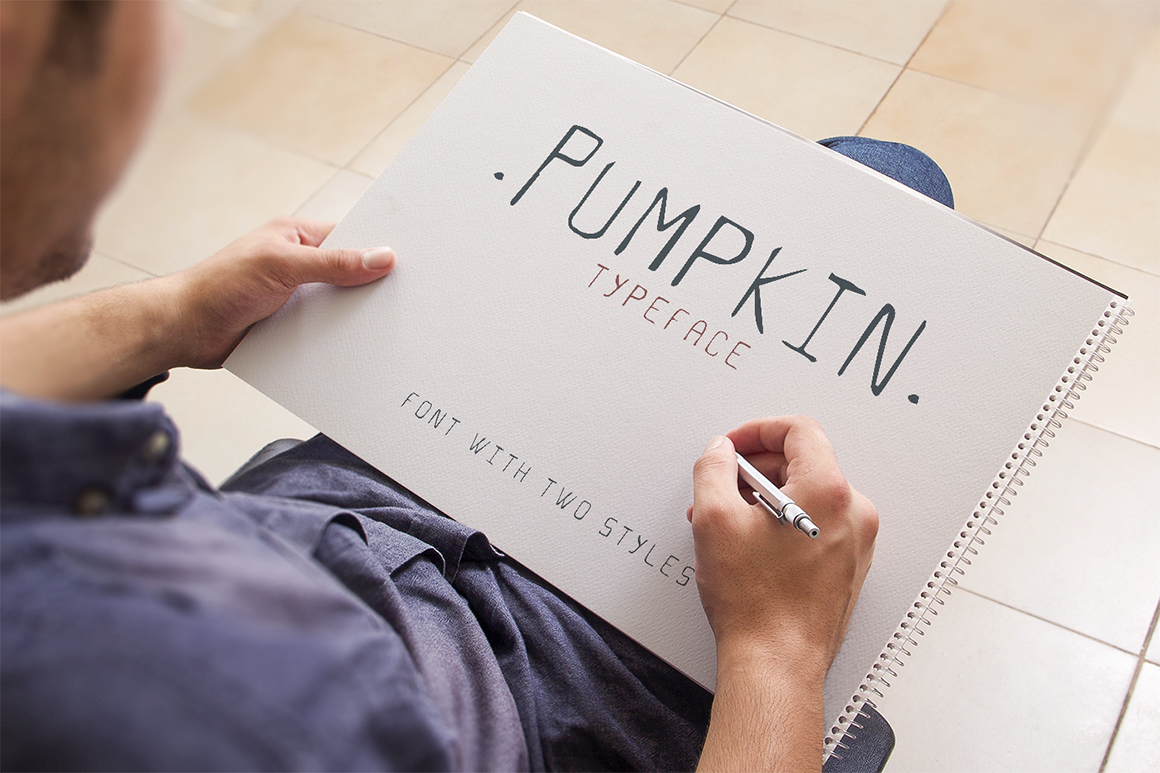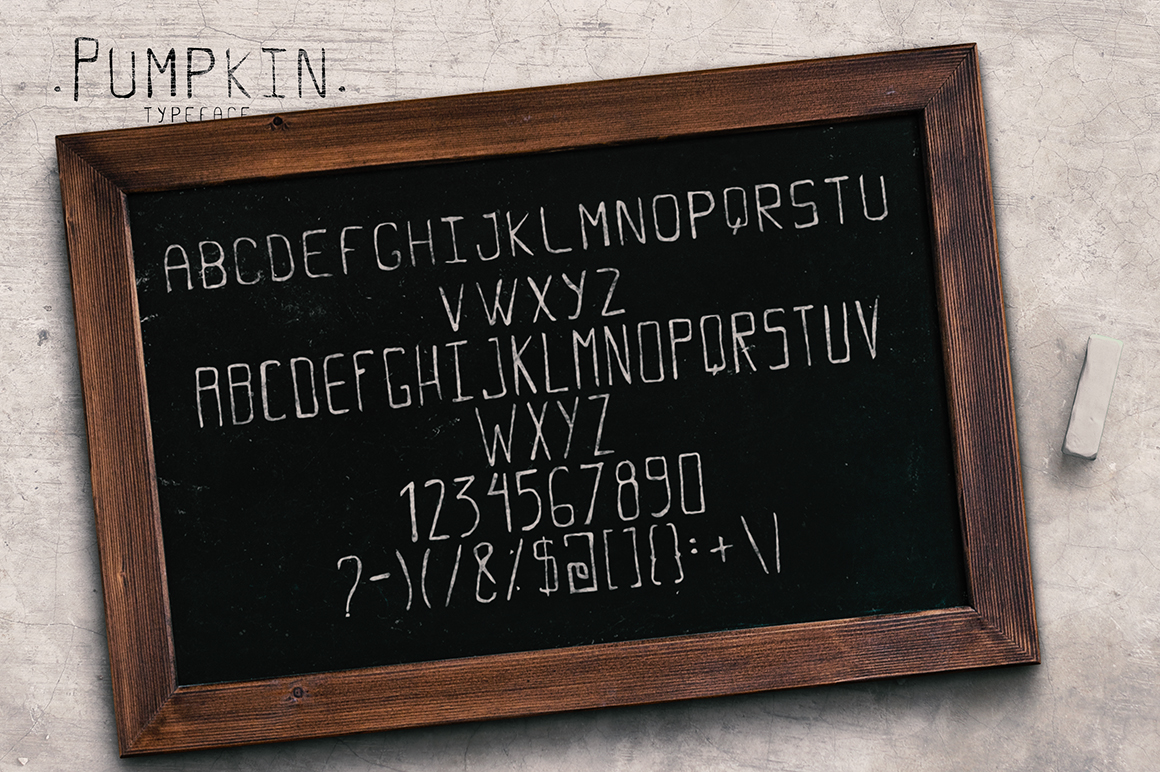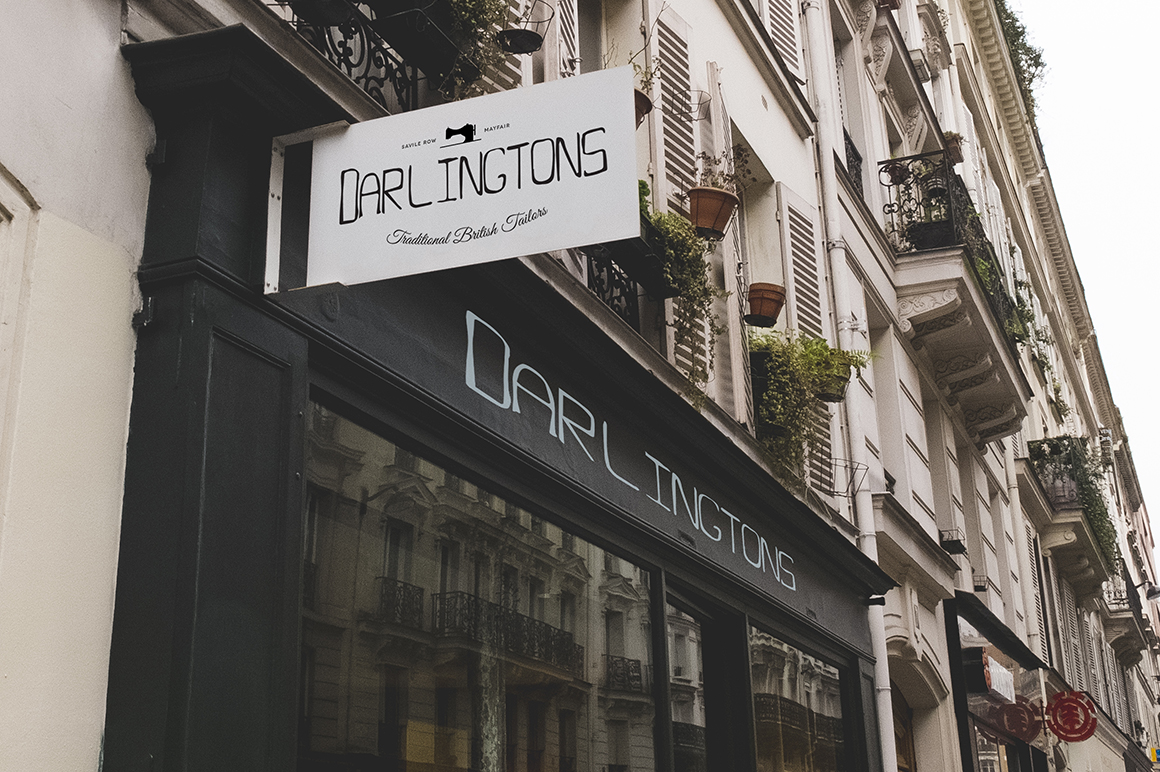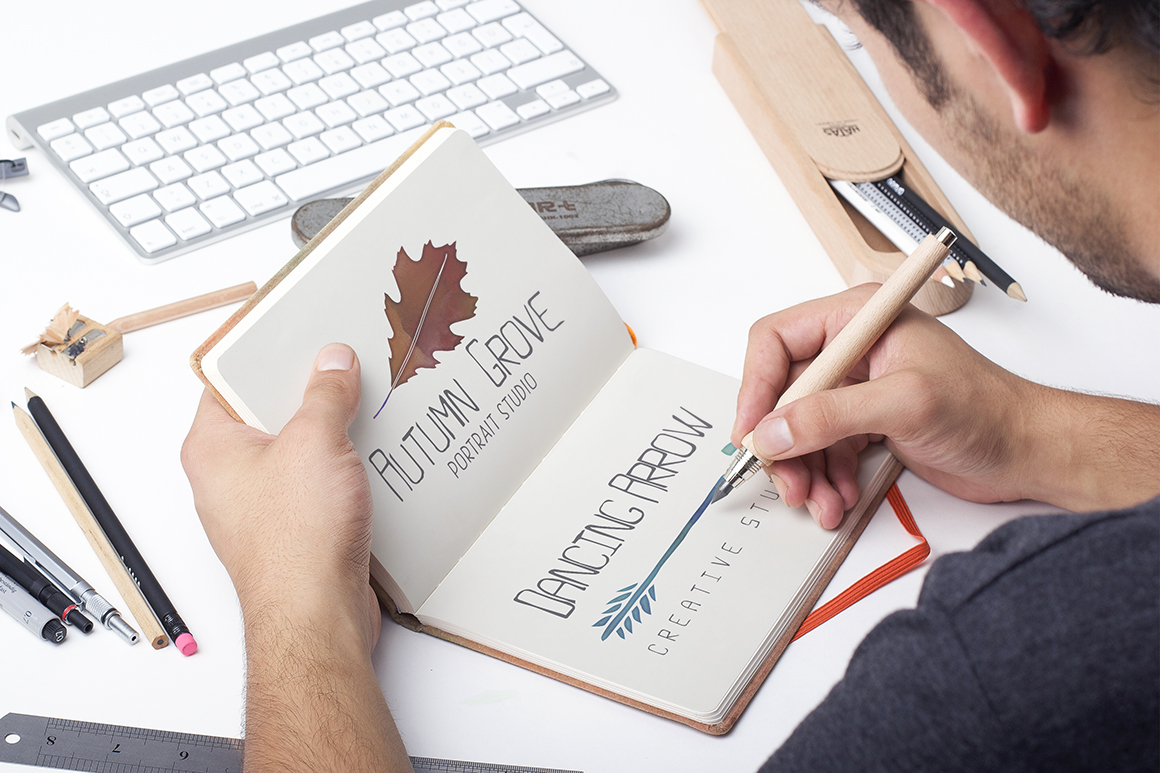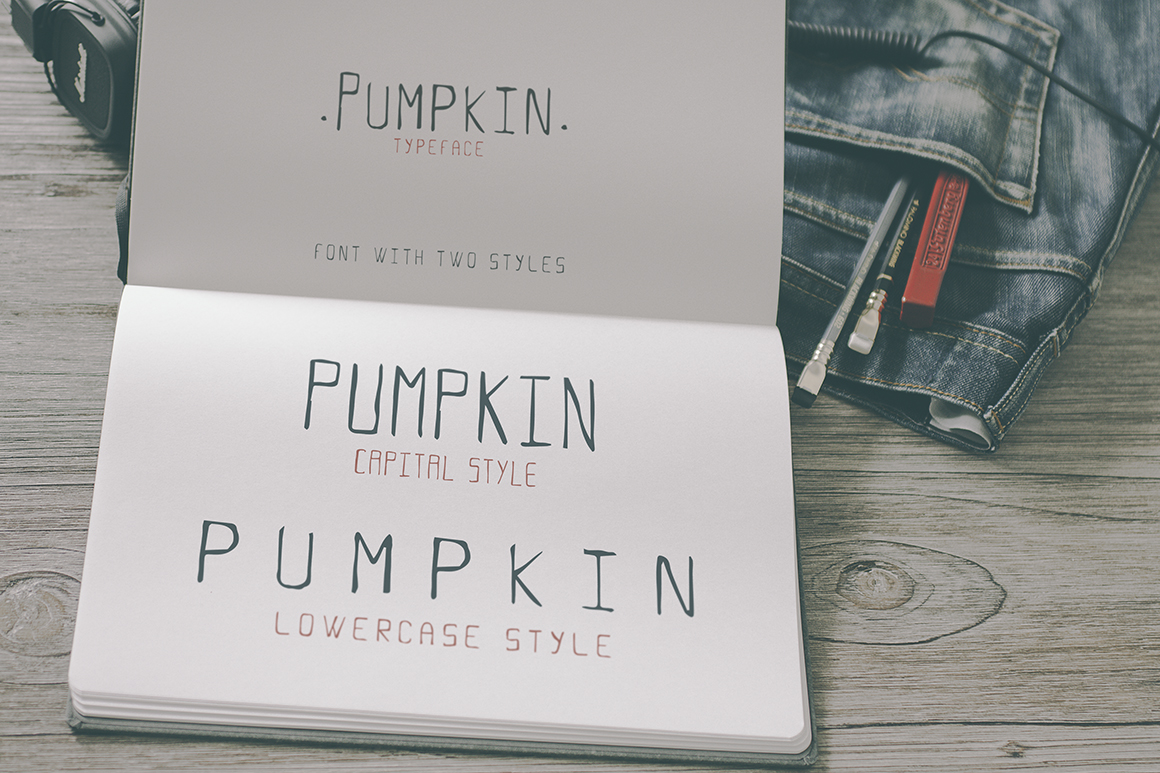
Pumpkin Font
About Pumpkin Font
Pumkin is an all caps font that comes in 2 different styles that can be accessed by using the lower-case and upper-case letters.